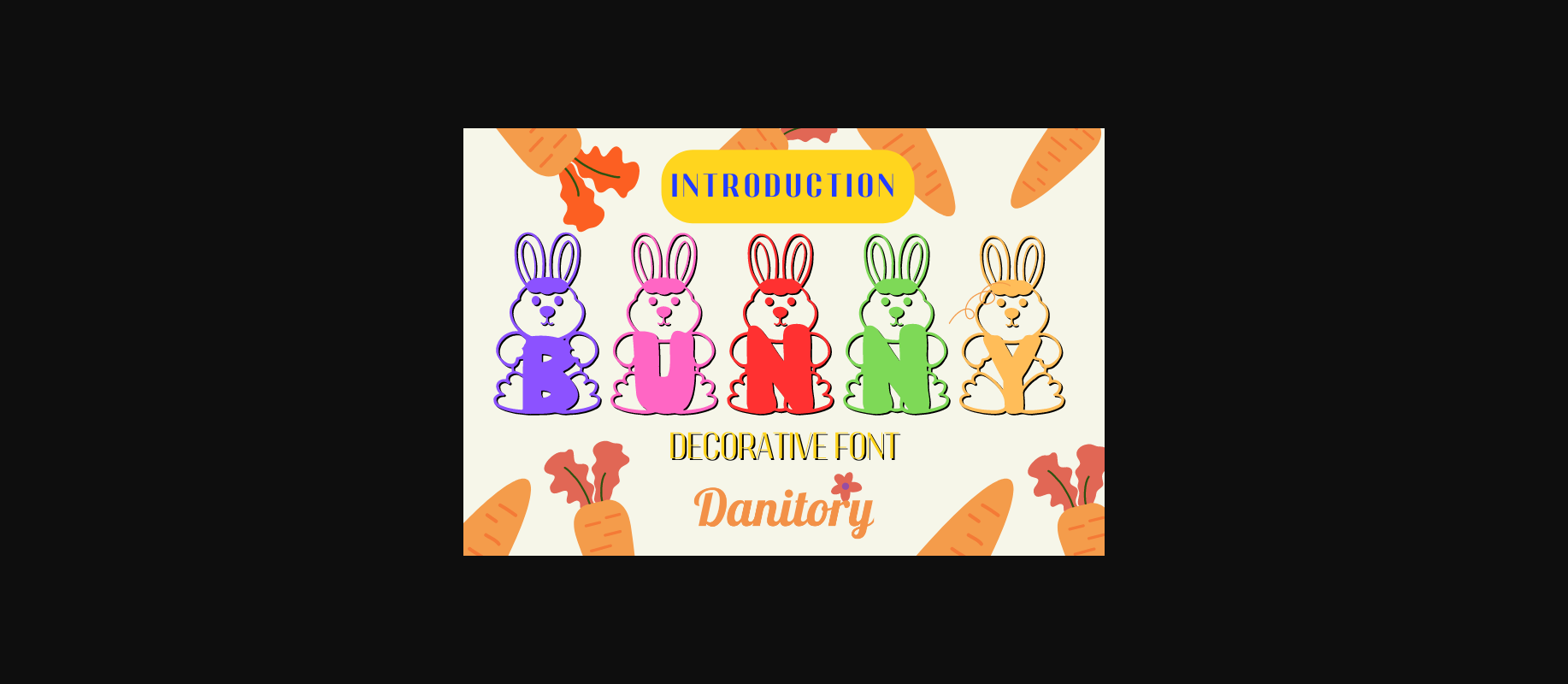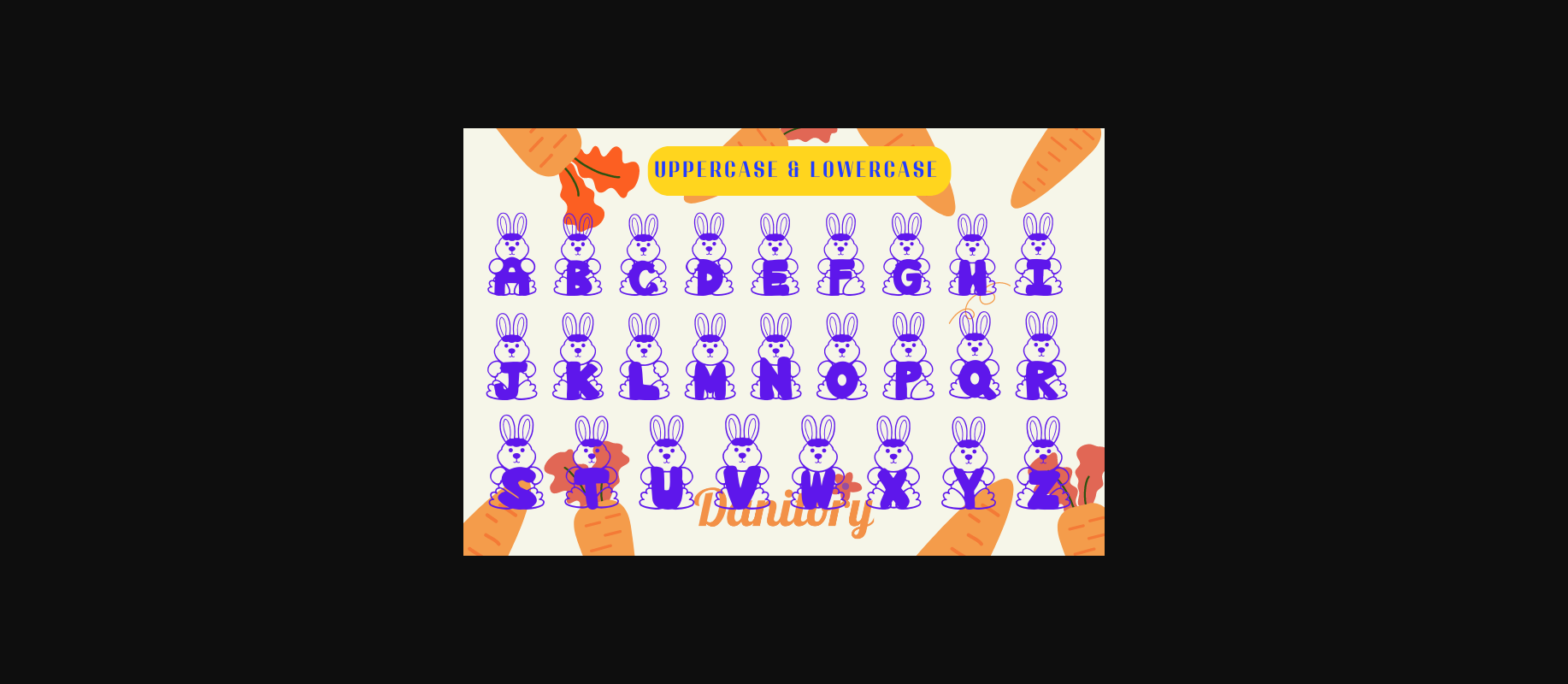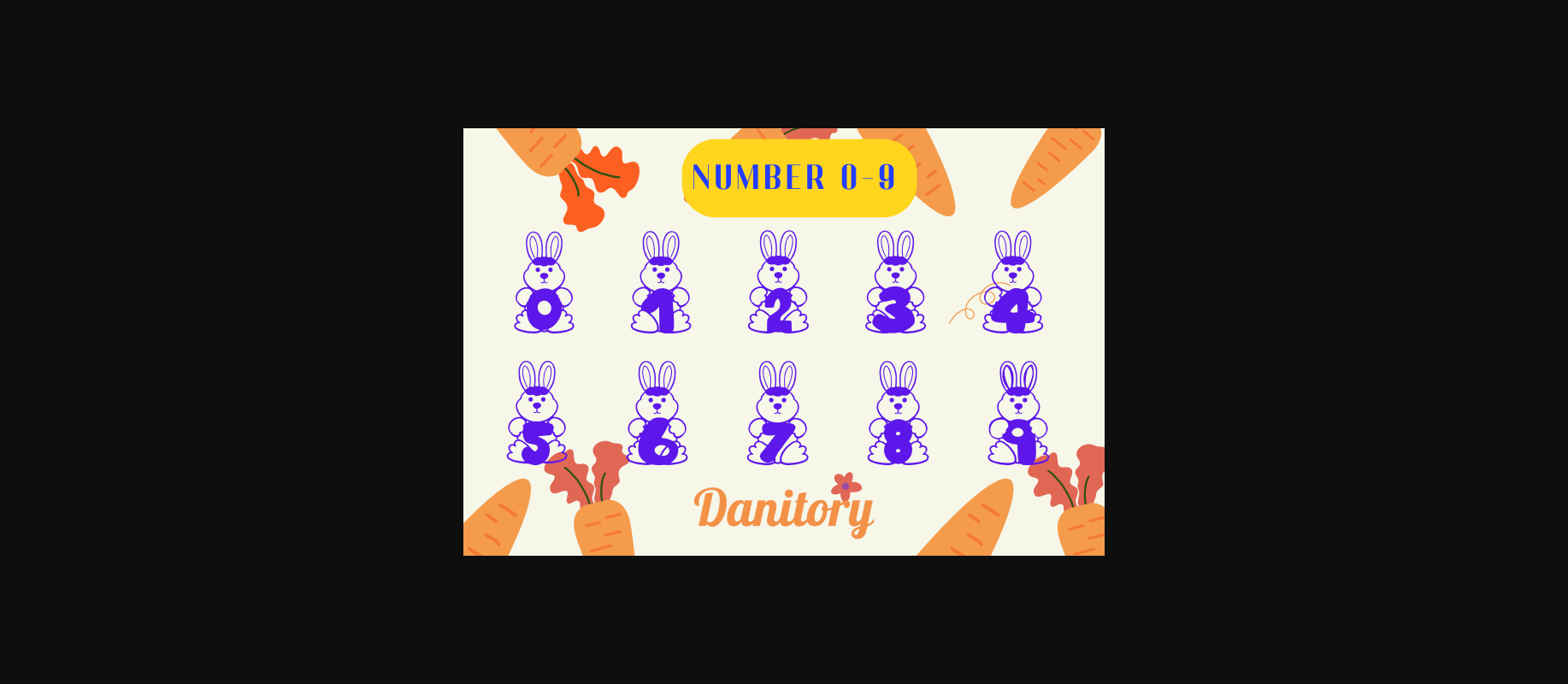
Bunny Font
About Bunny Font
Bunny is a cute and lovely decorative font featuring letters with a bunny aspect. With its playful and whimsical design, this font is perfect for creating adorable designs for children’s books, Easter-themed projects, and other designs that require a touch of cuteness.